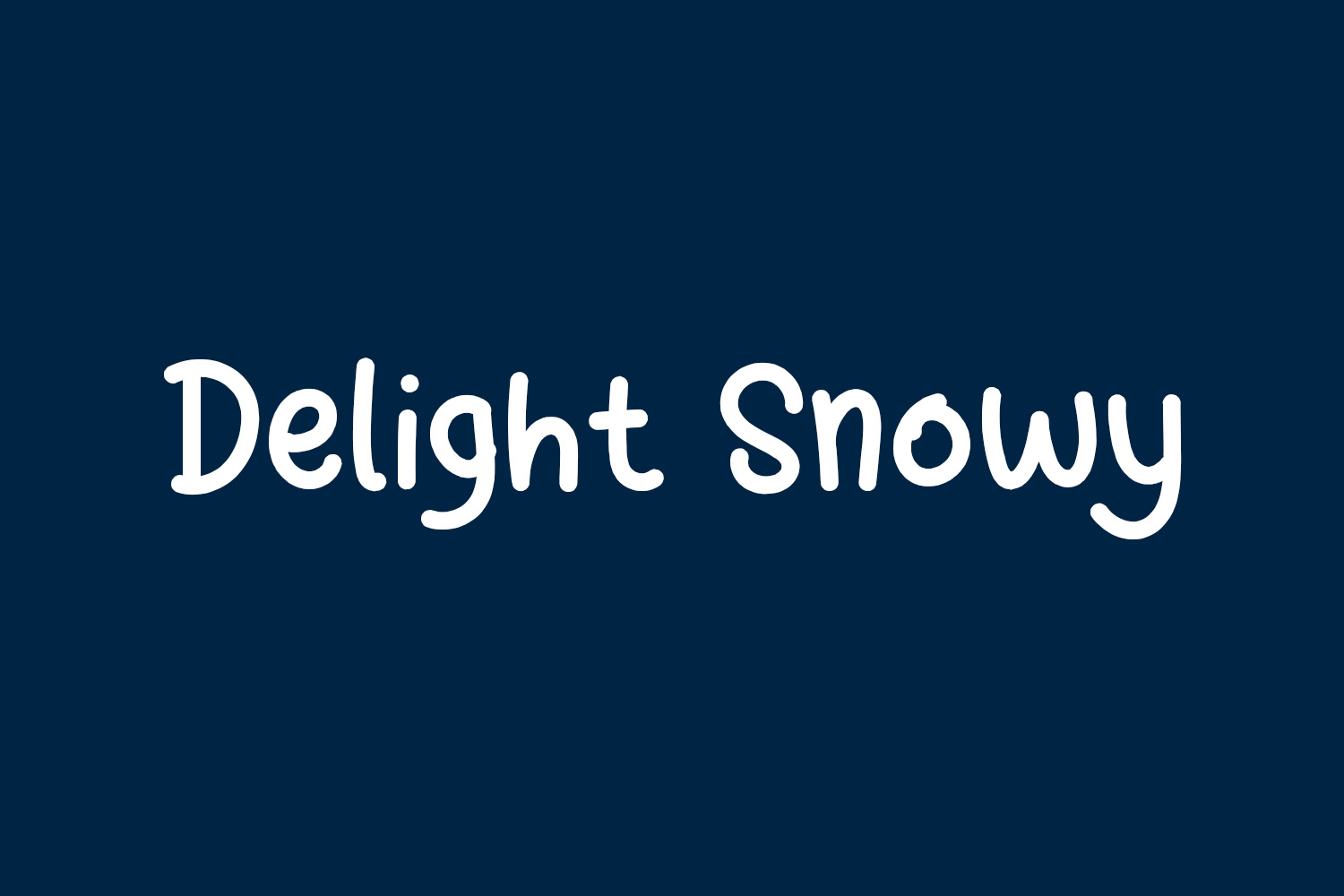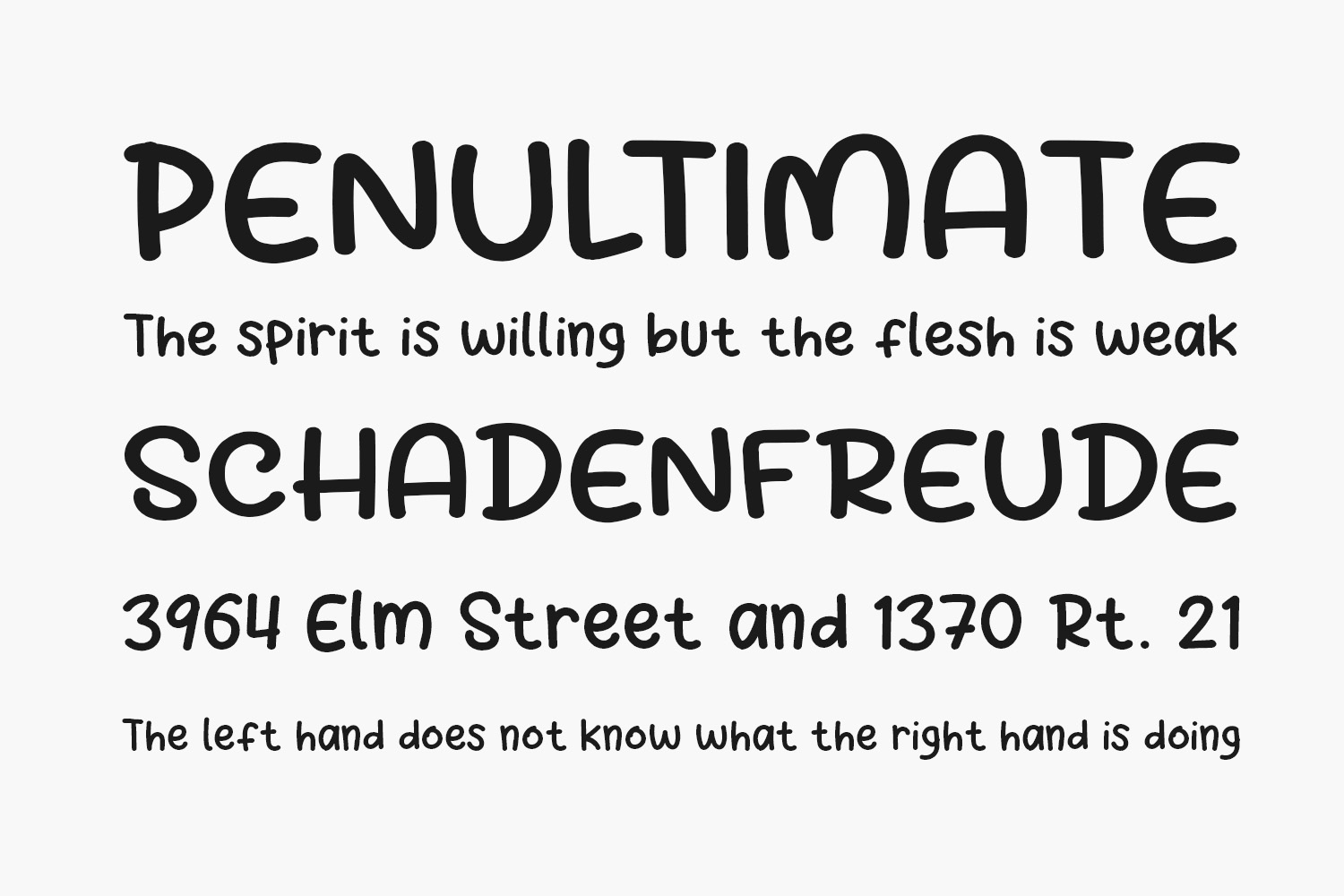
Delight Snowy Free Font is a modern and fancy handwritten display font perfect for posters, logos, magazines, book covers, banners, and many more! Get this quirky display font, and use it to create lovely designs. Delight Snowy Free Font was designed by Khurasan and is free for personal or commercial use only.